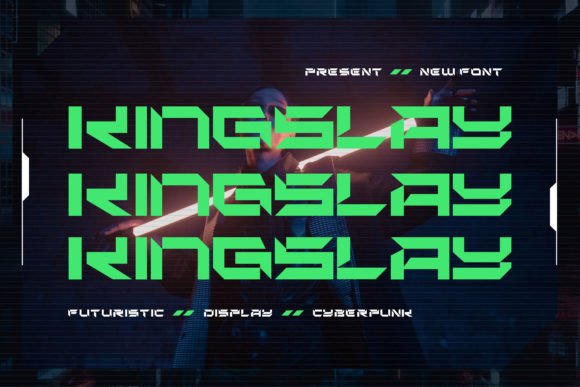
Journey into the realm of innovation and sleekness with "Kingslay" - a visionary display font engineered to ignite your futuristic designs. Each letter, meticulously crafted with sharp geometric structures and pristine lines, is a testament to the boundless possibilities of modern design. "Kingslay" transcends boundaries, effortlessly commanding attention with its bold and captivating presence. Craft awe-inspiring headlines and logos that radiate modernity, propelling your designs into the future. Whether you're navigating the uncharted territories of technology, exploring the enigmatic depths of science fiction, or embarking on any cutting-edge endeavor, "Kingslay" stands as your steadfast companion, empowering you to unleash your creative prowess. Furthermore, the versatility of "Kingslay" extends far beyond futuristic aesthetics, making it an ideal choice for branding, advertising, and countless creative pursuits where a progressive and captivating touch is desired. Embrace the transformative power of "Kingslay" today and propel your designs into a realm of limitless possibilities!
**Exclusive Features of "Kingslay":**
- A Symphony of Bold Lines: Experience the mesmerizing interplay of bold, clean lines that converge to form an unforgettable typographic masterpiece.
- Futuristic Allure: Captivate your audience with the font's futuristic charm, effortlessly evoking a sense of innovation and progress.
- Unparalleled Versatility: Witness the font's remarkable adaptability, seamlessly transitioning from branding and advertising to creative endeavors, leaving an indelible mark on every project it adorns.
**Reasons Why "Kingslay" is the Ultimate Choice:**
- Leave a Lasting Impression: Create a lasting impression on your audience with "Kingslay's" captivating presence, propelling your designs to new heights of engagement.
- Unleash Creativity: Grant your creativity free rein as you explore the boundless possibilities offered by "Kingslay," transforming your designs into captivating works of art.
- Stand Out from the Crowd: Distinguish yourself from the masses with the unique aesthetic of "Kingslay," allowing your designs to shine with unparalleled individuality.
**Step into the Future with "Kingslay" Today:**
Embark on a journey of innovation and creativity as you embrace the transformative power of "Kingslay." With its futuristic allure and unparalleled versatility, "Kingslay" is the key to unlocking the full potential of your designs. Seize this opportunity to leave an indelible mark on the world, revolutionizing the realm of digital art. Welcome "Kingslay" into your creative arsenal today and unleash the boundless potential that lies within you!